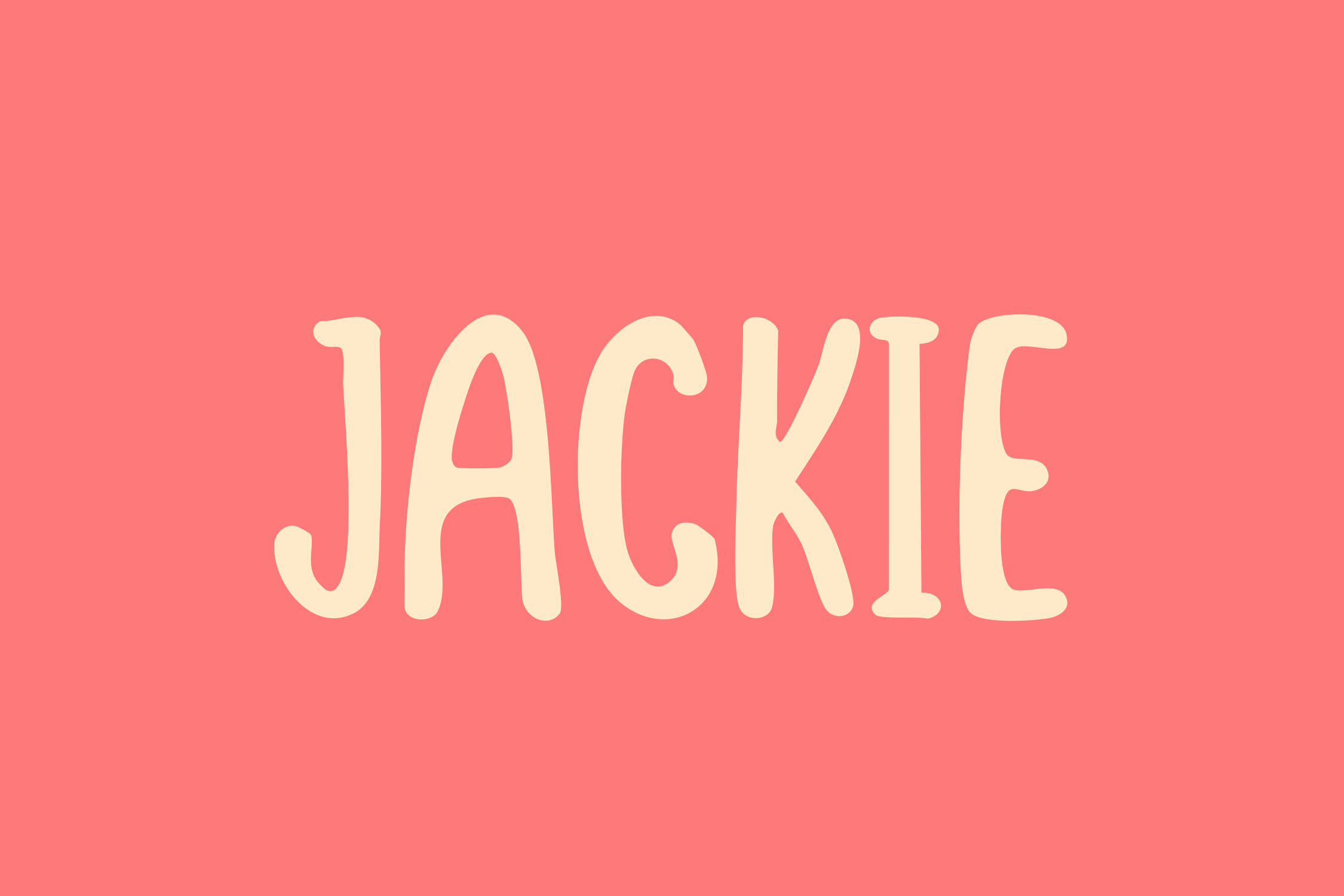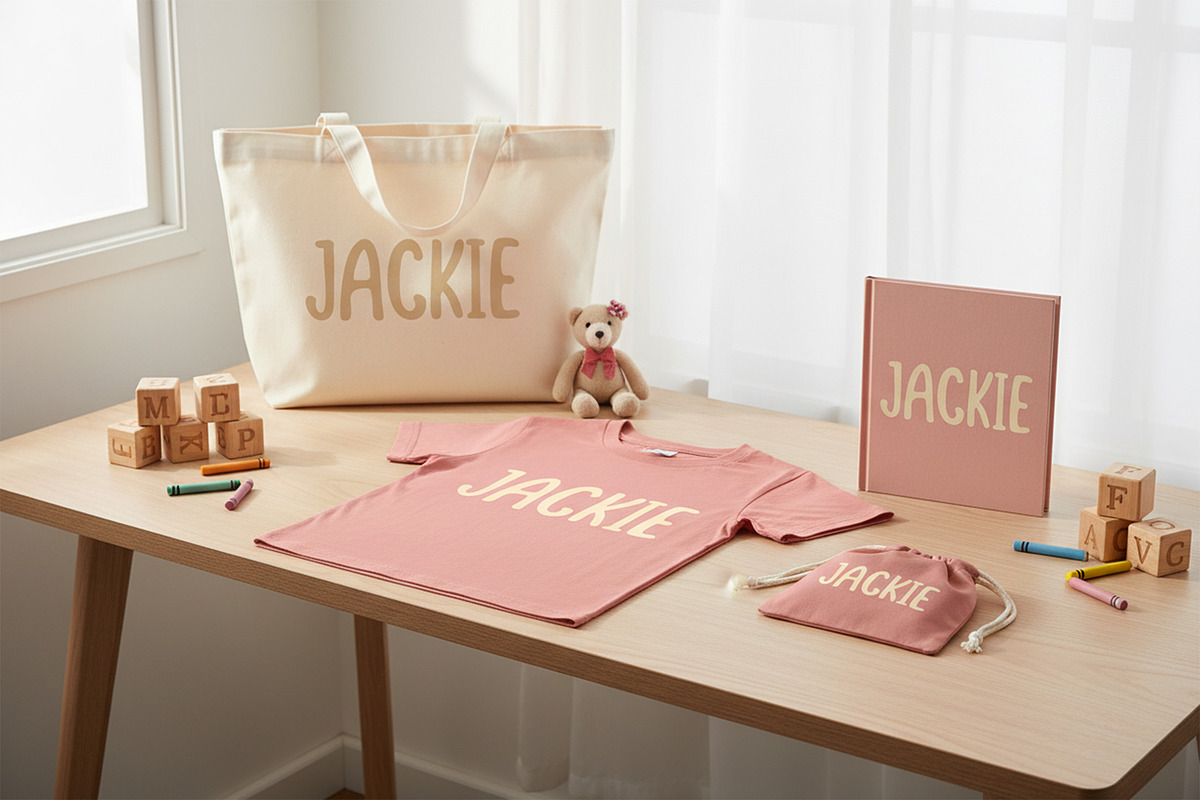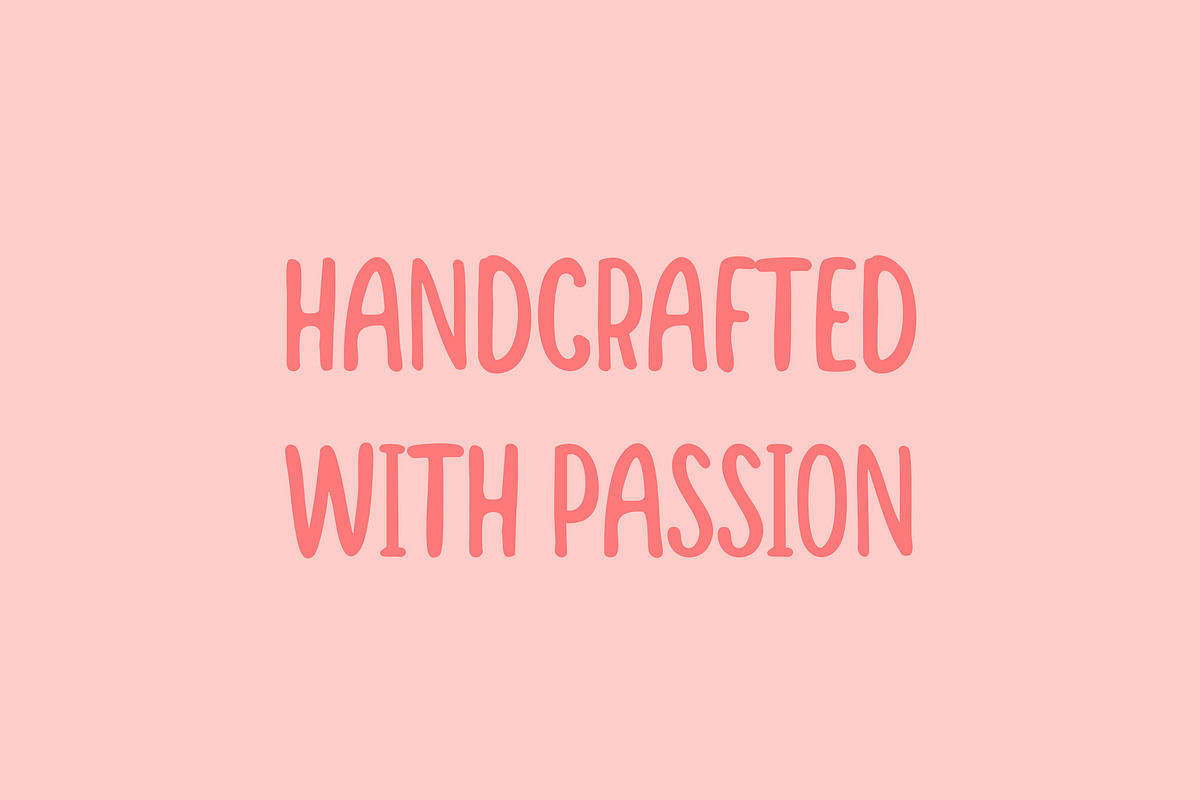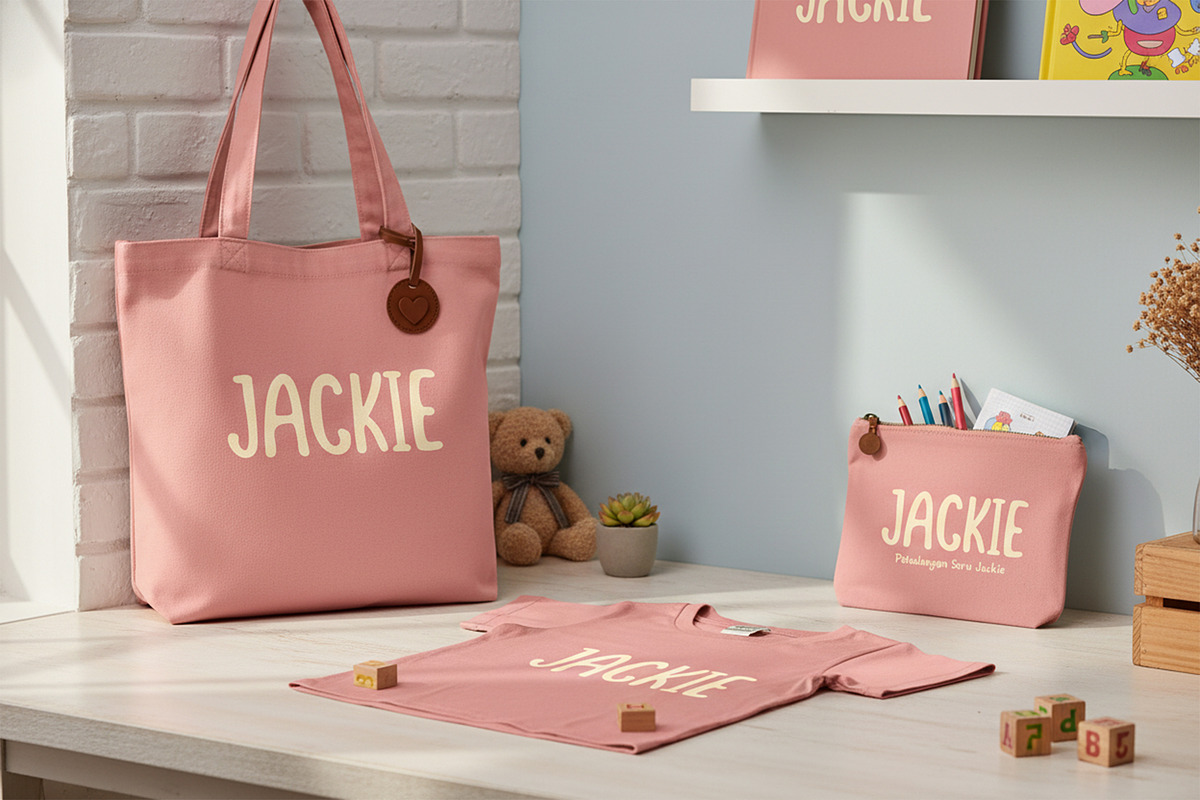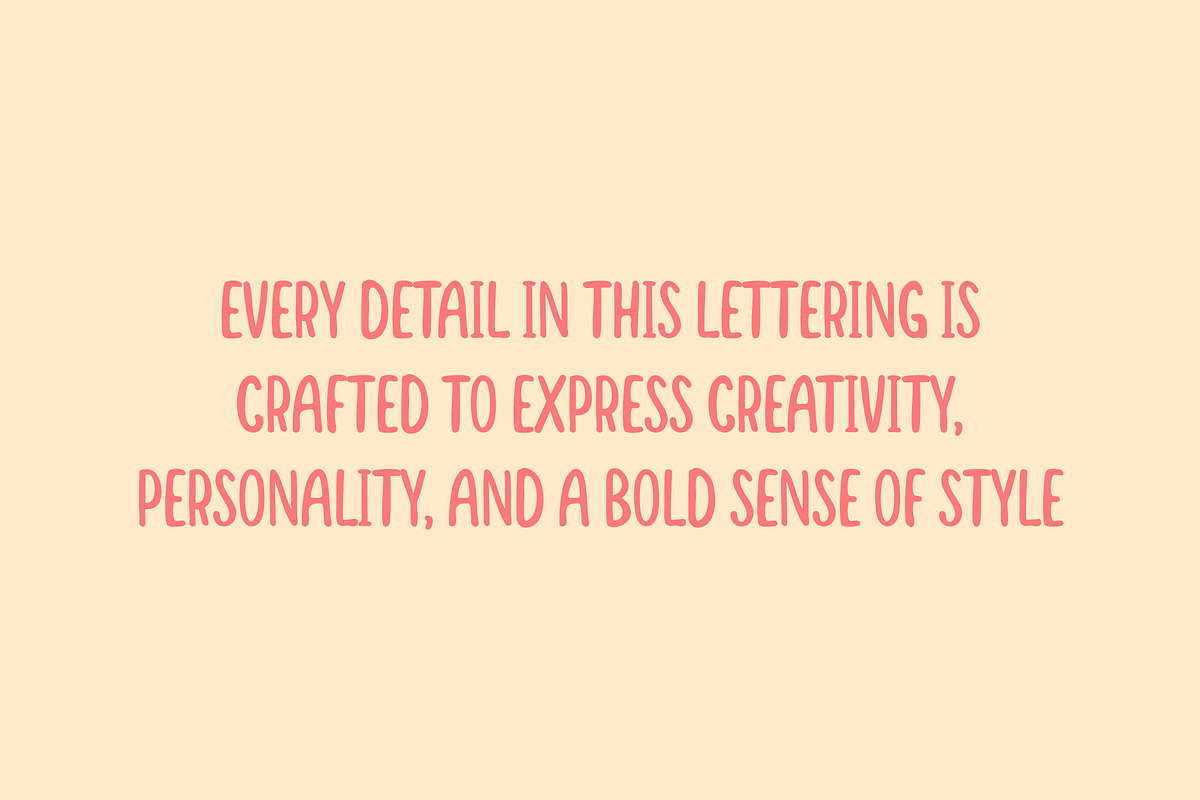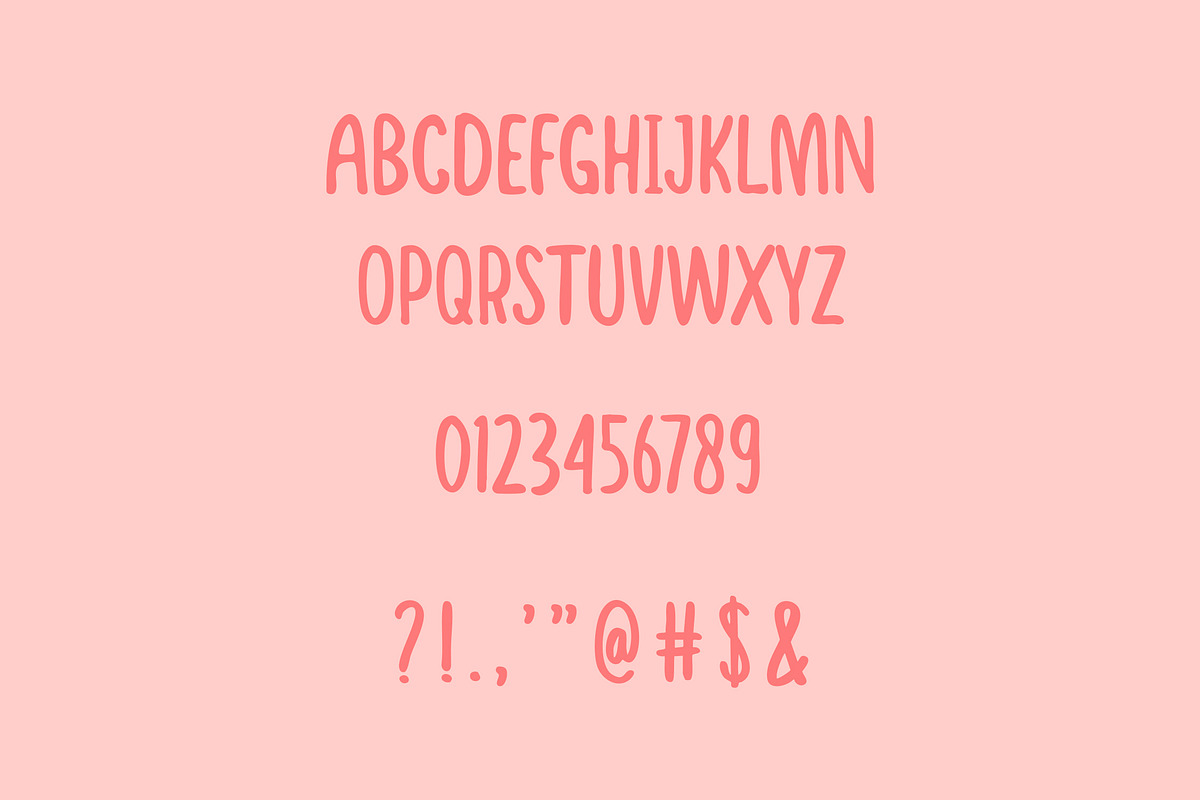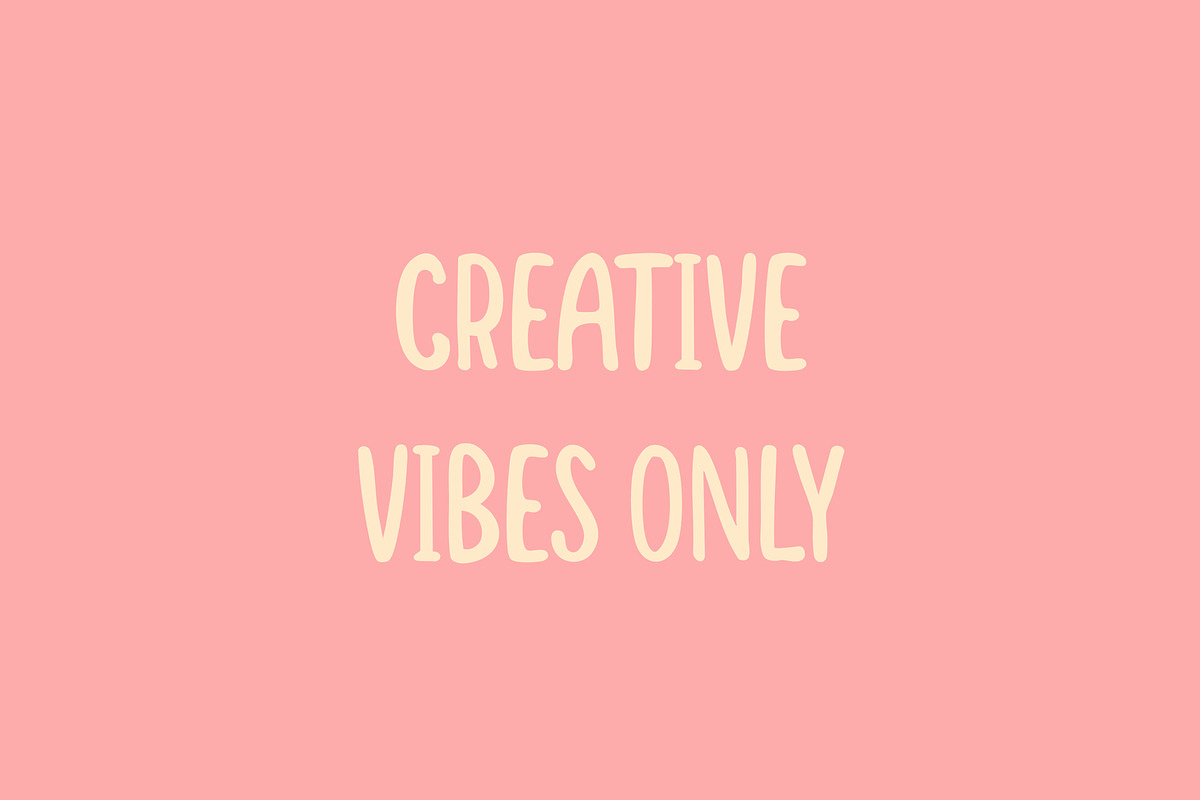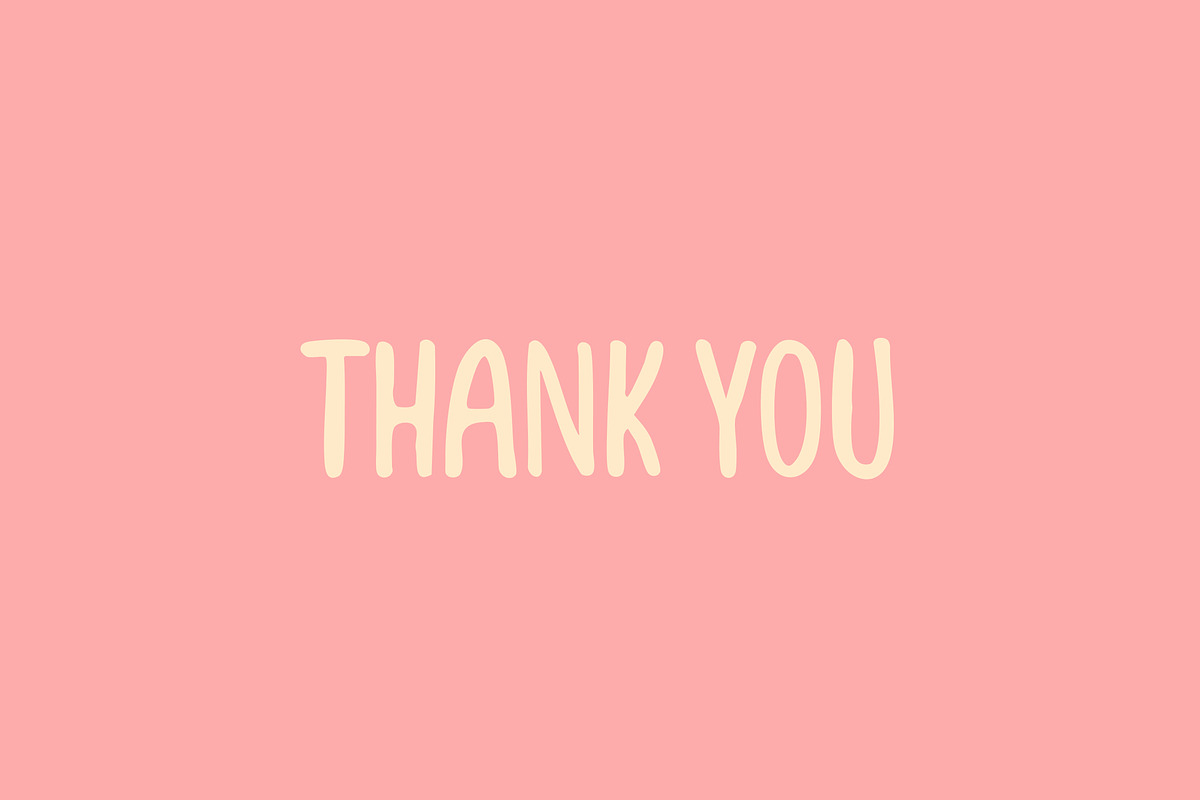
JACKIE Playful Handwritten Font
JACKIE Playful Handwritten Font brings a fun, energetic vibe to your designs. With its lively strokes and cheerful handwritten style, JACKIE is perfect for branding, quotes, children’s designs, packaging, greeting cards, and playful social media content. It’s friendly, expressive, and instantly adds charm to any creative project.